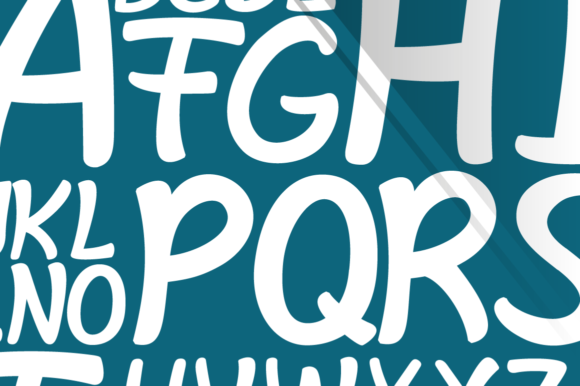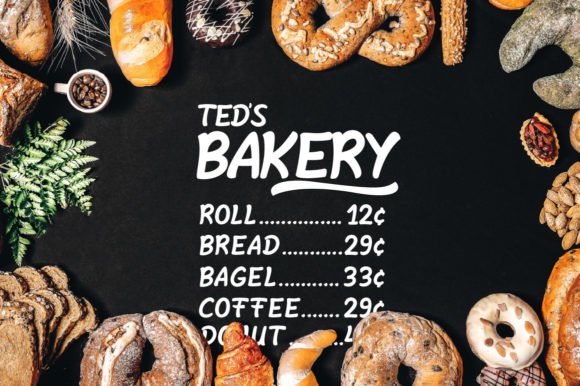
About Shelta Family Font
Introducing “The Shelta,” an amazing handwritten font family that brings a fun and playful style, perfect for creating a handmade and lively character in your designs. This font family goes beyond the ordinary, offering a regular, bold, and light variant, each accompanied by its own set of italics.
“The Shelta” is not just a typeface; it’s a versatile design family that can cater to a variety of creative needs. The fun and handwritten style make it well-suited for projects that aim to convey a sense of playfulness, such as comics or any design where a handmade character is desired.
The regular variant of “The Shelta” offers a balanced and versatile style, while the bold variant adds emphasis and impact to your text. The light variant provides a more delicate touch, giving you the flexibility to choose the tone that best suits your design.
The inclusion of italics in each variant expands the family’s expressive range, allowing you to create dynamic and engaging text layouts. Whether you’re working on comic book lettering, playful branding, or any project that calls for a handwritten and lively character, “The Shelta” family provides the tools you need.
In summary, “The Shelta” is more than just a font; it’s a versatile design family that embraces a fun and handwritten style. Choose from the regular, bold, or light variants, along with their respective italics, to bring a lively and expressive character to your comics, branding, and various design projects.